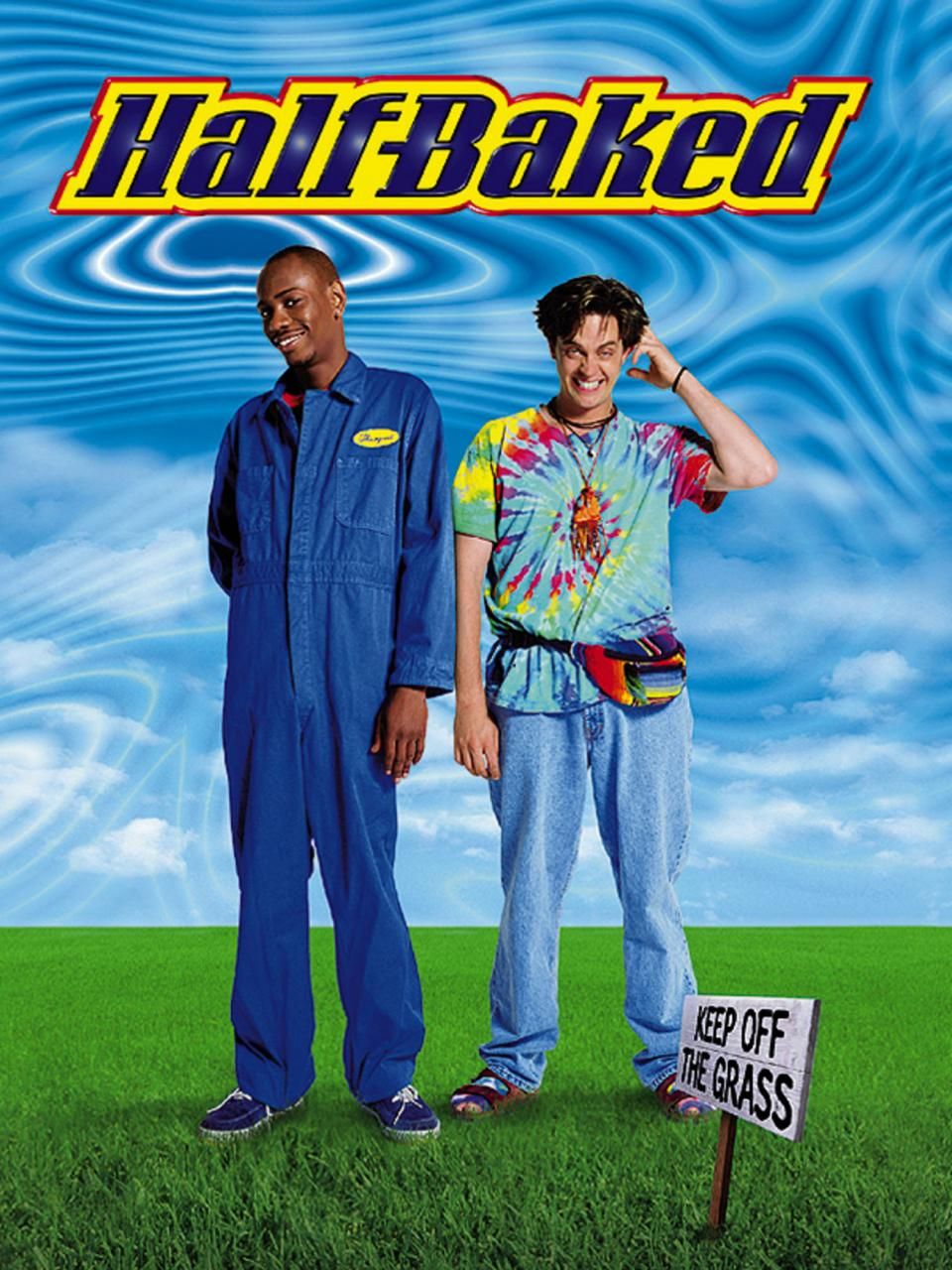
Half Baked Font
ComedyHalf Baked is a 1998 comedy film starring Dave Chappelle, Jim Breuer, and Harland Williams as friends who turn to selling marijuana to bail a friend out of jail.